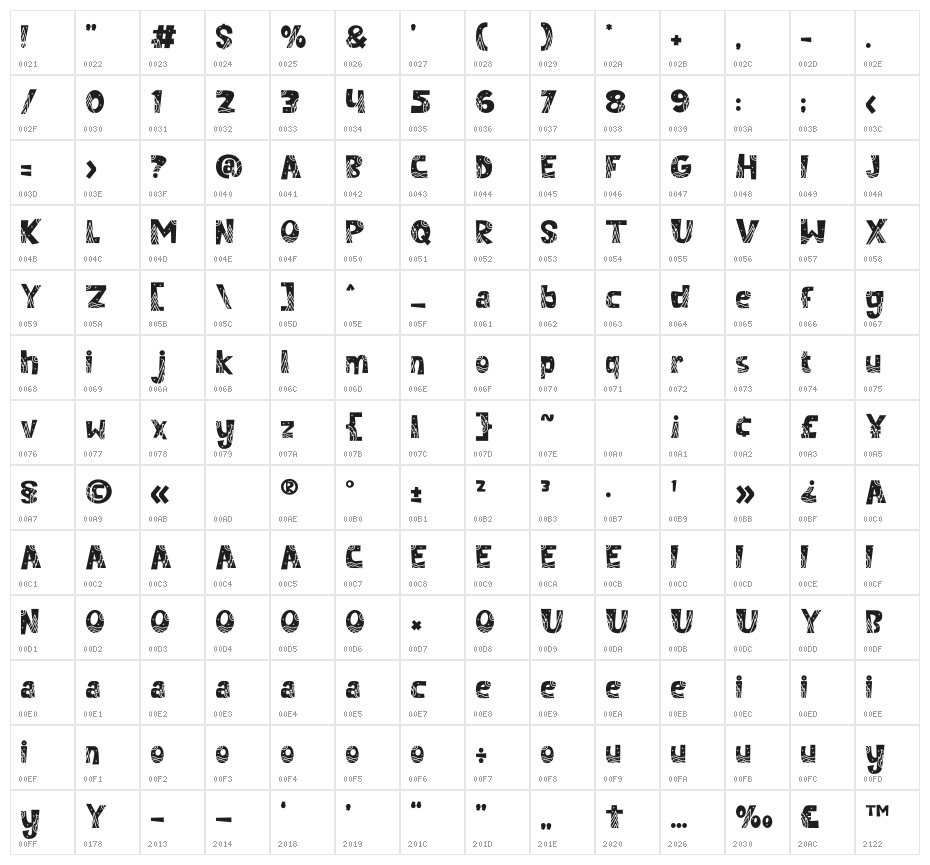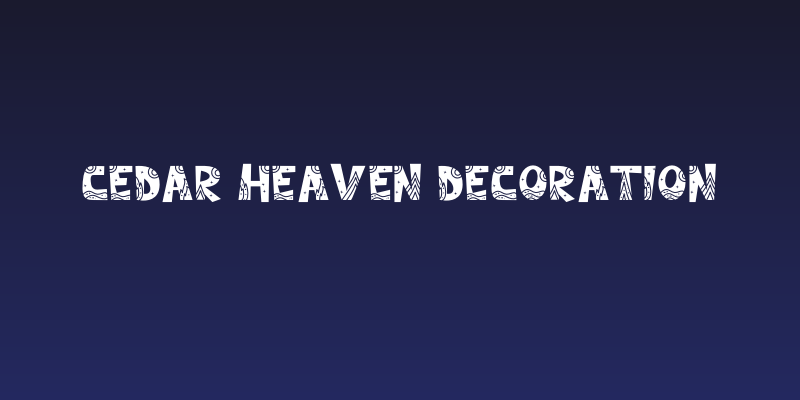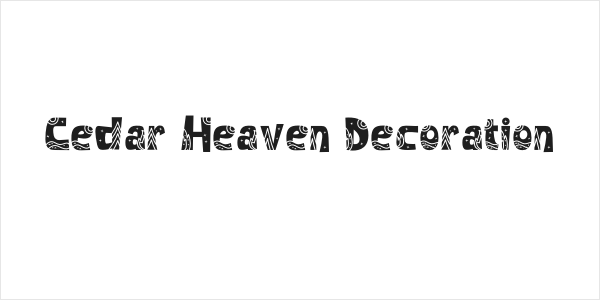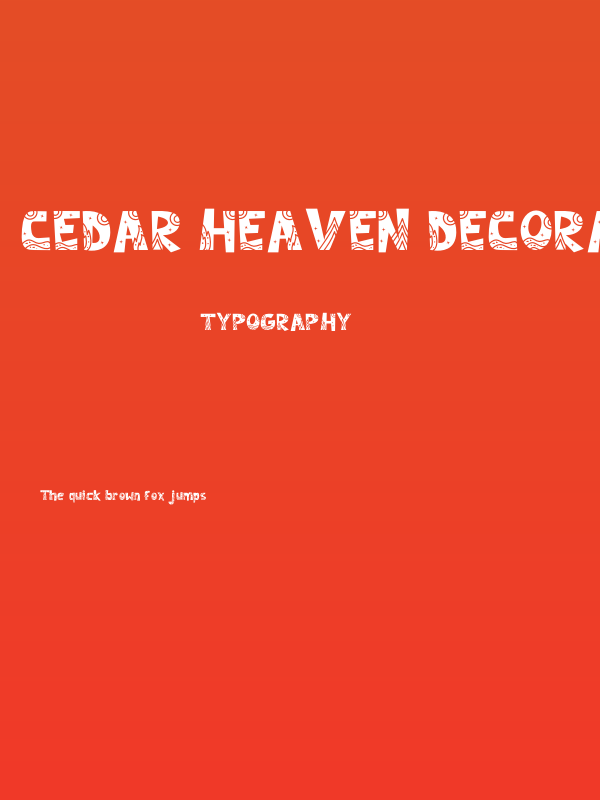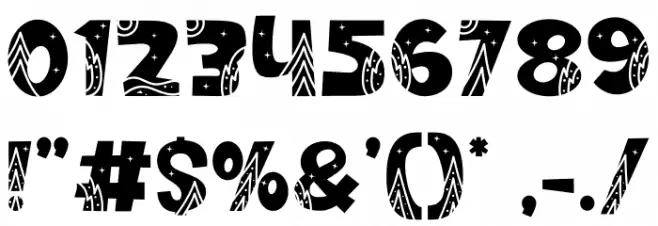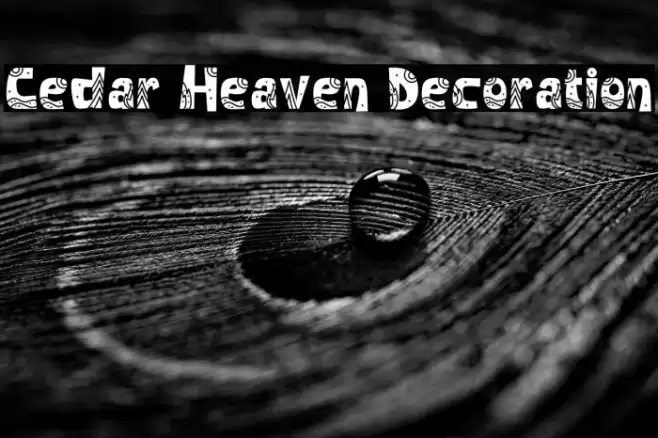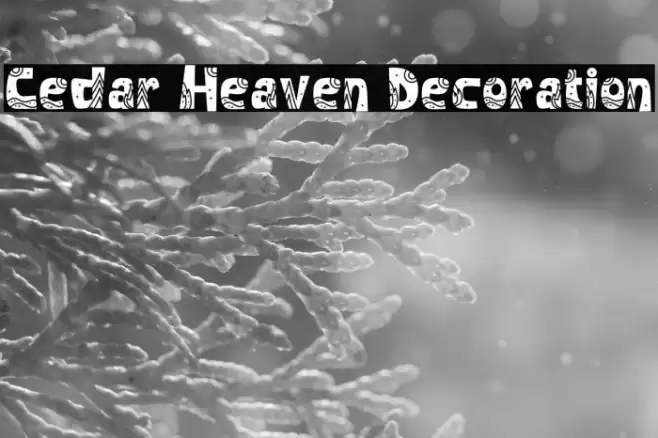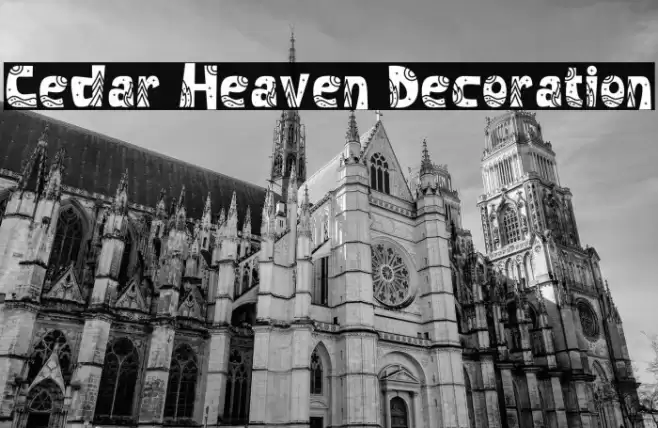
Cedar Heaven Decoration Font
Cedar Heaven Decoration Description
This font features a bold and decorative style with intricate patterns embedded within each character. The letters are filled with unique, artistic designs that resemble tribal or ethnic motifs, giving it a distinct and eye-catching appearance. The uppercase and lowercase letters maintain a consistent style, with each character showcasing a combination of geometric shapes and organic curves. The numbers and special characters follow the same decorative theme, ensuring a cohesive look across all glyphs. This font is ideal for projects that require a strong visual impact and a touch of creativity.
| Proposed Projects | Ideal for posters, album covers, branding, and any project needing a bold, artistic touch. |